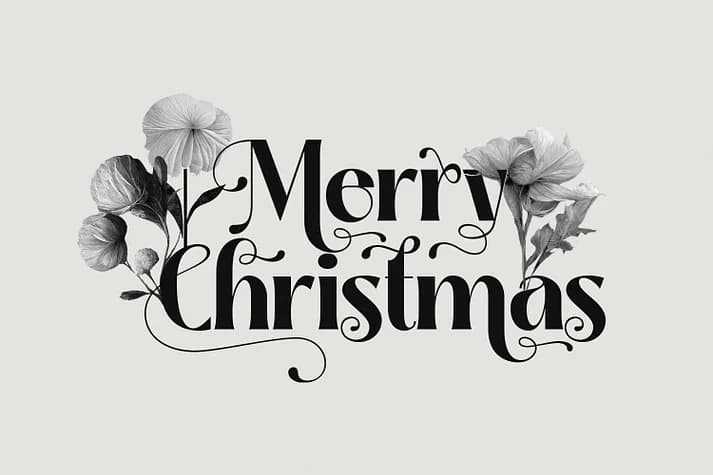
Kathy Style, designed by Creative Media Lab, brings personality through its alternates. This modern typeface comes in five weights with matching italics, giving you flexibility across scales and emphasis levels. What sets it apart is the generous collection of alternate characters. You can swap glyphs to create custom letterforms and adjust the visual feel of any heading, title, or logo mark. Beyond basic headline fonts, it offers real depth.
The design balances elegance with clarity, striking the refined look that luxury work demands. You'll deploy this on high-end product packaging, wedding invitation suites where attention to detail signals quality, fashion brand identity systems, and boutique skincare labels. Swapping alternates lets you customize logos so they feel hand-tailored rather than generic. Luxury brands especially value this flexibility when they want their typography to signal exclusivity.
For designers taking on premium projects where letterforms carry weight and meaning, Kathy Style is the obvious choice. Language support spans Western Europe, Central and Eastern Europe, the Baltic region, Turkish, and Romanian, so you can deploy it across multiple markets. On Creative Fabrica, you'll find this typeface waiting to add refinement to your design toolkit.
Kathy Style Font is a decorative font that shines as a display or heading face. Pair it with a clean sans-serif or serif font for body text β the contrast creates a clear hierarchy while the two styles stay balanced and easy to read.
Kathy Style Font